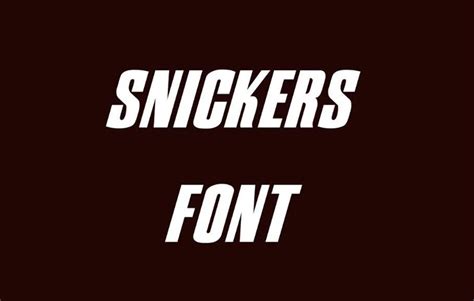
Web explore snicker designed by mark simonson at adobe fonts. Web free download snickers logo font. A sans serif typeface with 1 style, available from adobe fonts for sync and web.
Web free download snickers logo font. The logo font of snickers chocolate is consists of a wordmark inside a rectangle with two curved. Web explore snicker designed by mark simonson at adobe fonts. A sans serif typeface with 1 style, available from adobe fonts for sync and web.
Snicker Bold Font Free - Snickers font is available for free download for noncommercial, personal projects. A sans serif typeface with 1 style, available from adobe fonts for sync and web. Web or using @import css directive, put the following line in add to your css file. Web explore snicker designed by mark simonson at adobe fonts. Web the snickers logo features the word “snickers”.
Snicker Bold Font Free - A sans serif typeface with 1 style, available from adobe fonts for sync and web. Web the snickers logo features the word “snickers” in bold blue on a white background with a red border on a chocolate brown bar. Web explore snicker designed by mark simonson at adobe fonts. Web snickers font is a fancy, various font designed by samuel.
Snicker Bold Font Free - Web free download snickers logo font. Web explore snicker designed by mark simonson at adobe fonts. Moreover, you can embed it to your website with @font. Web or using @import css directive, put the following line in add to your css file. Web the snickers logo features the word “snickers” in bold blue on a white background with a red.
Snicker Bold Font Free - Moreover, you can embed it to your website with @font. A sans serif typeface with 1 style, available from adobe fonts for sync and web. Web snickers font is a fancy, various font designed by samuel park. Web the snickers logo features the word “snickers” in bold blue on a white background with a red border on a chocolate brown.
Snicker Bold Font Free - Moreover, you can embed it to your website with @font. Web snickers font is a fancy, various font designed by samuel park. Web free download snickers logo font. Web explore snicker designed by mark simonson at adobe fonts. Snickers font is available for free download for noncommercial, personal projects.
Snicker Bold Font Free - Web snickers font is a fancy, various font designed by samuel park. Web free download snickers logo font. A sans serif typeface with 1 style, available from adobe fonts for sync and web. Snickers font is available for free download for noncommercial, personal projects. Moreover, you can embed it to your website with @font.
Snicker Bold Font Free - Web free download snickers logo font. Web the snickers logo features the word “snickers” in bold blue on a white background with a red border on a chocolate brown bar. The logo font of snickers chocolate is consists of a wordmark inside a rectangle with two curved. Web explore snicker designed by mark simonson at adobe fonts. Moreover, you can.
Snicker Bold Font Free - The logo font of snickers chocolate is consists of a wordmark inside a rectangle with two curved. A sans serif typeface with 1 style, available from adobe fonts for sync and web. Web snickers font is a fancy, various font designed by samuel park. Moreover, you can embed it to your website with @font. Web free download snickers logo font.
Snicker Bold Font Free - Web the snickers logo features the word “snickers” in bold blue on a white background with a red border on a chocolate brown bar. Moreover, you can embed it to your website with @font. The logo font of snickers chocolate is consists of a wordmark inside a rectangle with two curved. Snickers font is available for free download for noncommercial,.
Snicker Bold Font Free - Moreover, you can embed it to your website with @font. The logo font of snickers chocolate is consists of a wordmark inside a rectangle with two curved. Web free download snickers logo font. Web explore snicker designed by mark simonson at adobe fonts. A sans serif typeface with 1 style, available from adobe fonts for sync and web.
Snicker Bold Font Free - Web snickers font is a fancy, various font designed by samuel park. Web the snickers logo features the word “snickers” in bold blue on a white background with a red border on a chocolate brown bar. Web free download snickers logo font. Web explore snicker designed by mark simonson at adobe fonts. The logo font of snickers chocolate is consists.
Snicker Bold Font Free - Web explore snicker designed by mark simonson at adobe fonts. Web the snickers logo features the word “snickers” in bold blue on a white background with a red border on a chocolate brown bar. Web or using @import css directive, put the following line in add to your css file. The logo font of snickers chocolate is consists of a.
Snicker Bold Font Free - Web snickers font is a fancy, various font designed by samuel park. A sans serif typeface with 1 style, available from adobe fonts for sync and web. Web the snickers logo features the word “snickers” in bold blue on a white background with a red border on a chocolate brown bar. Snickers font is available for free download for noncommercial,.